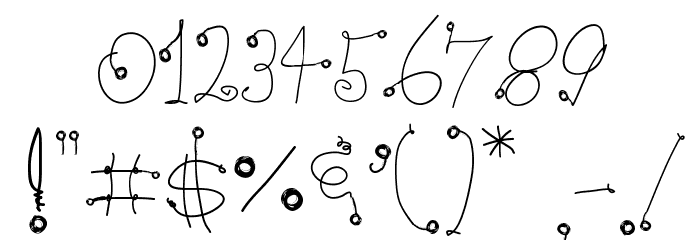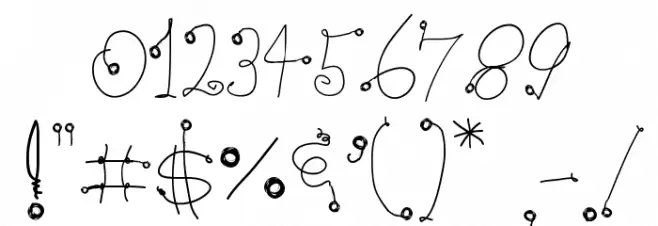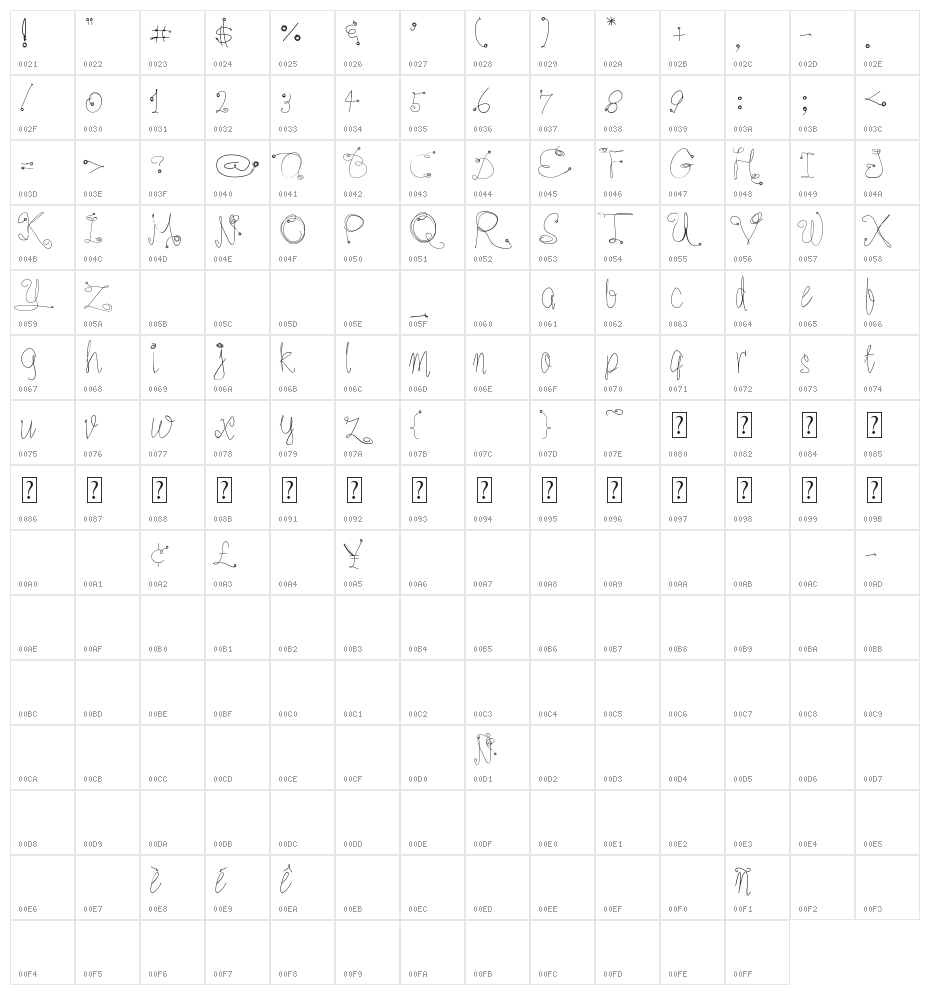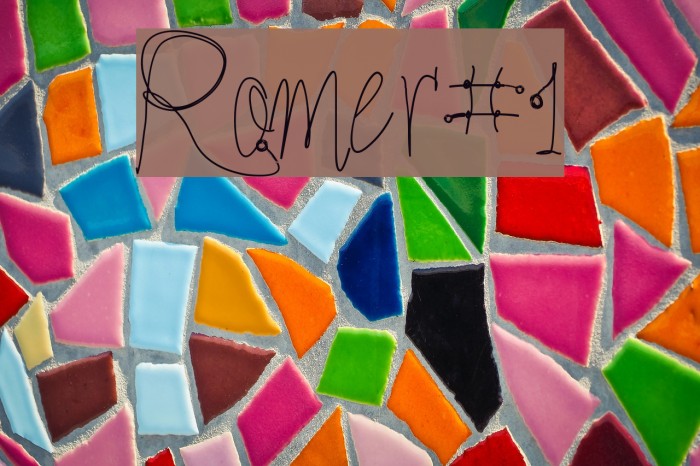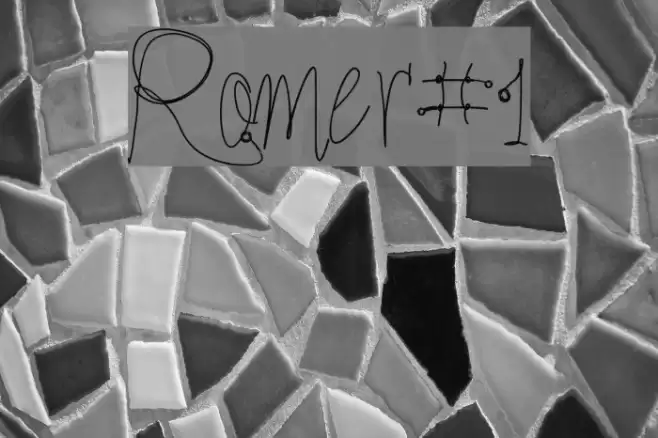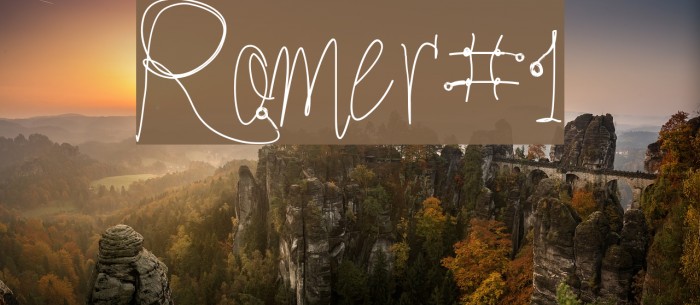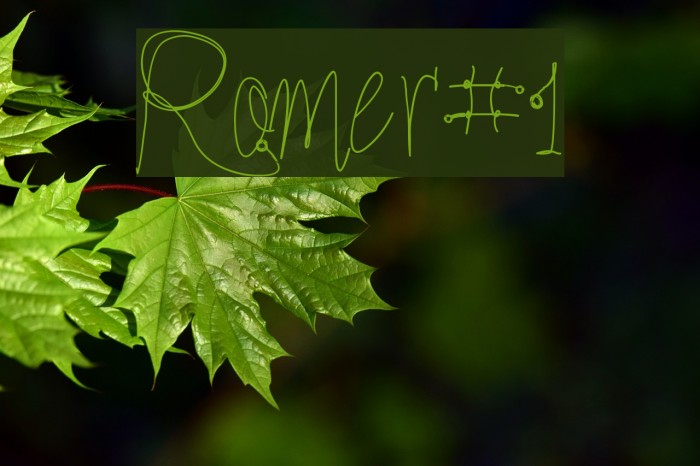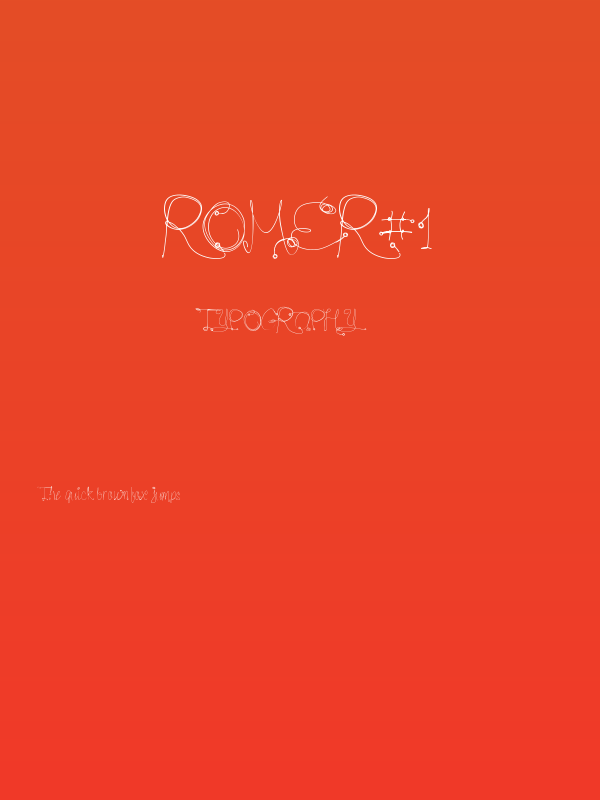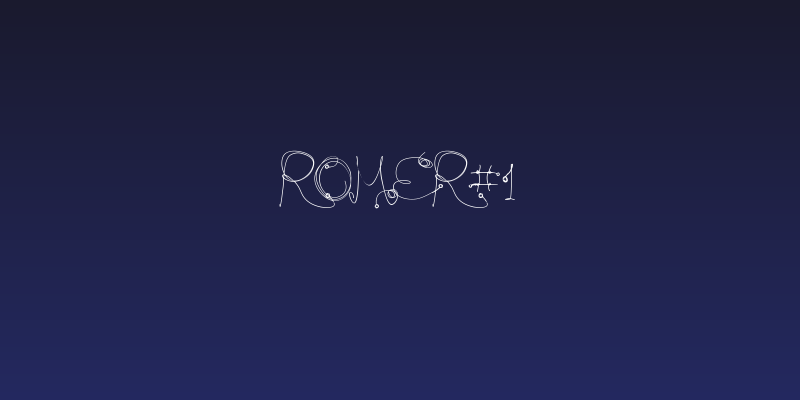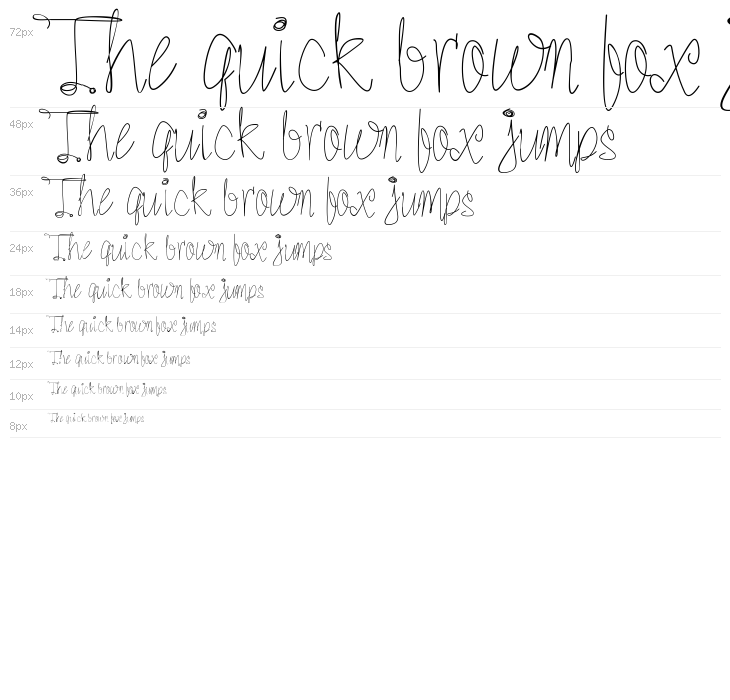
Romer#1 Font
Romer#1 Description
This font is a whimsical and playful design, characterized by its unique, hand-drawn style. Each letter is crafted with swirling lines and loops, giving it a lively and animated appearance. The uppercase letters are particularly elaborate, with intricate curls and embellishments that add a sense of movement and creativity. The lowercase letters maintain a more straightforward, yet still playful, design. Numbers and special characters follow the same artistic theme, with loops and curls that make them stand out. This font is perfect for projects that require a fun and artistic touch, such as children's books, creative posters, or playful branding.
| Proposed Projects | Ideal for children's books, creative posters, and playful branding. |